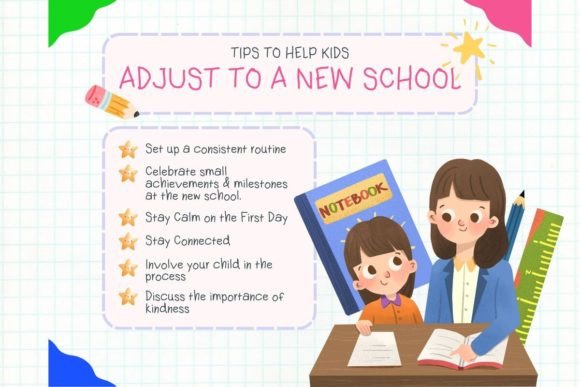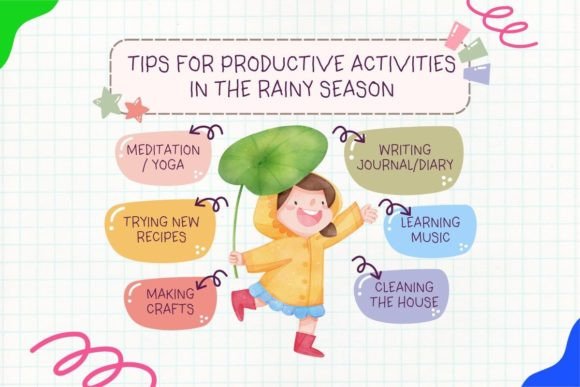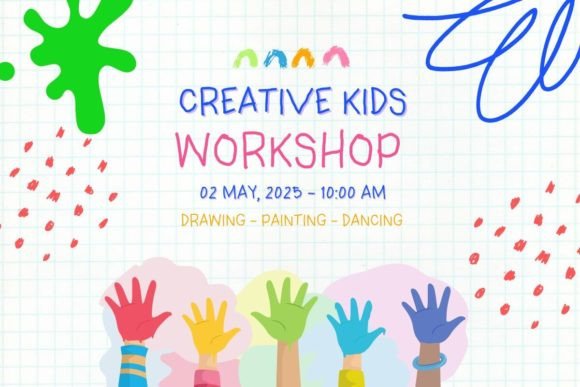
Introduction to Kindergarten School Font
Remember that moment when you were rummaging through your grandmother’s old trunk, and you stumbled upon a beautiful, handmade card from your childhood? The scribbled letters, the colorful doodles, and the sheer joy that radiated from every corner of that card made you feel like a kid again. That’s the magic of the Kindergarten School Font – a design resource that captures the whimsy and wonder of childhood.
As a designer, you’re always on the lookout for high-quality fonts that add a touch of personality to your projects. The Kindergarten School Font is a game-changer for anyone looking to create a unique and captivating design. With its transparent background and cute, handwritten style, this font is perfect for preschool crafts, kids’ art, and school activities. And the best part? You can download it for free, making it an essential addition to your design arsenal.
Key Features of Kindergarten School Font
- High-quality design resource suitable for creative projects, including educational materials, party invitations, and more.
- Features a transparent background, making it easy to use as a standalone element or layer in your design project.
- Includes a range of characters, including uppercase and lowercase letters, numbers, and special characters, making it a versatile design resource.
- Designed with a playful and educational tone, perfect for Kindergarten and early elementary school projects.
Honest Review: Kindergarten School Font
As a designer, I’m always on the lookout for high-quality design resources that can elevate my creative projects. I recently came across the Kindergarten School Font, and I’m excited to share my honest review.
- ✨ The font is super cute and perfect for any kindergarten-themed project.
- ✨ The transparent background is a nice touch, allowing for easy layering and customization.
However, I do have some limitations to mention:
⚠️ The font could benefit from more variations in terms of style and size. Currently, it’s a bit limited in its application.
Overall, I’m impressed with the Kindergarten School Font. It’s a great addition to any designer’s arsenal, especially for those working on creative projects involving kids. While it’s not perfect, it’s a solid choice for those looking for a free and high-quality design resource.
The Kindergarten School Font is perfect for various creative projects, including educational materials, children’s party invitations, and nursery decor. Its high-quality design and transparent background make it an ideal choice for a wide range of applications.